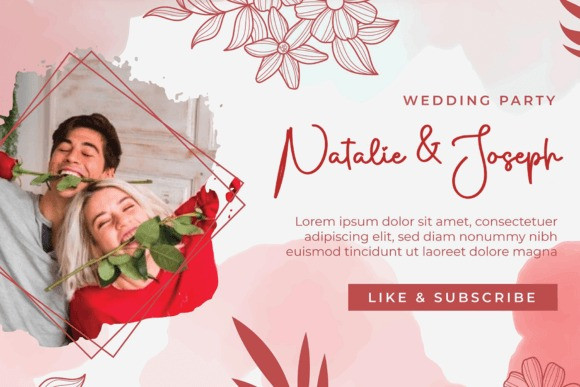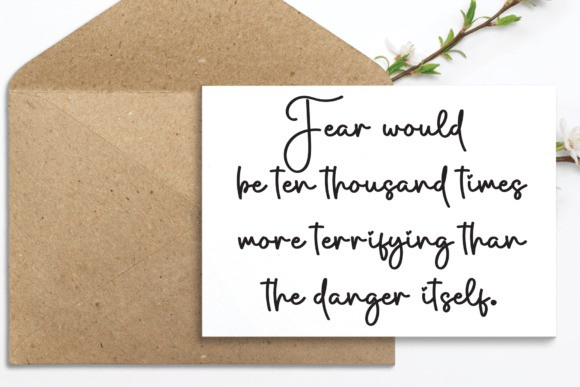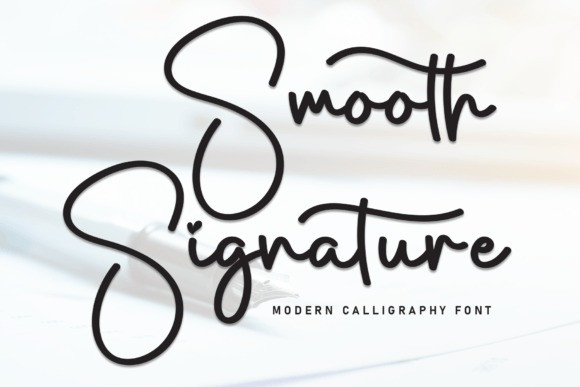
Smooth Signature Font
Smooth Signature Font is a contemporary handwritten font that brings a touch of modern elegance to your projects. With its fluid strokes and graceful curves, this font adds a personal and stylish feel to your text. Perfect for signatures, invitations, or any design that requires a sophisticated yet approachable touch. Choose Smooth Signature for a modern twist on handwritten charm.